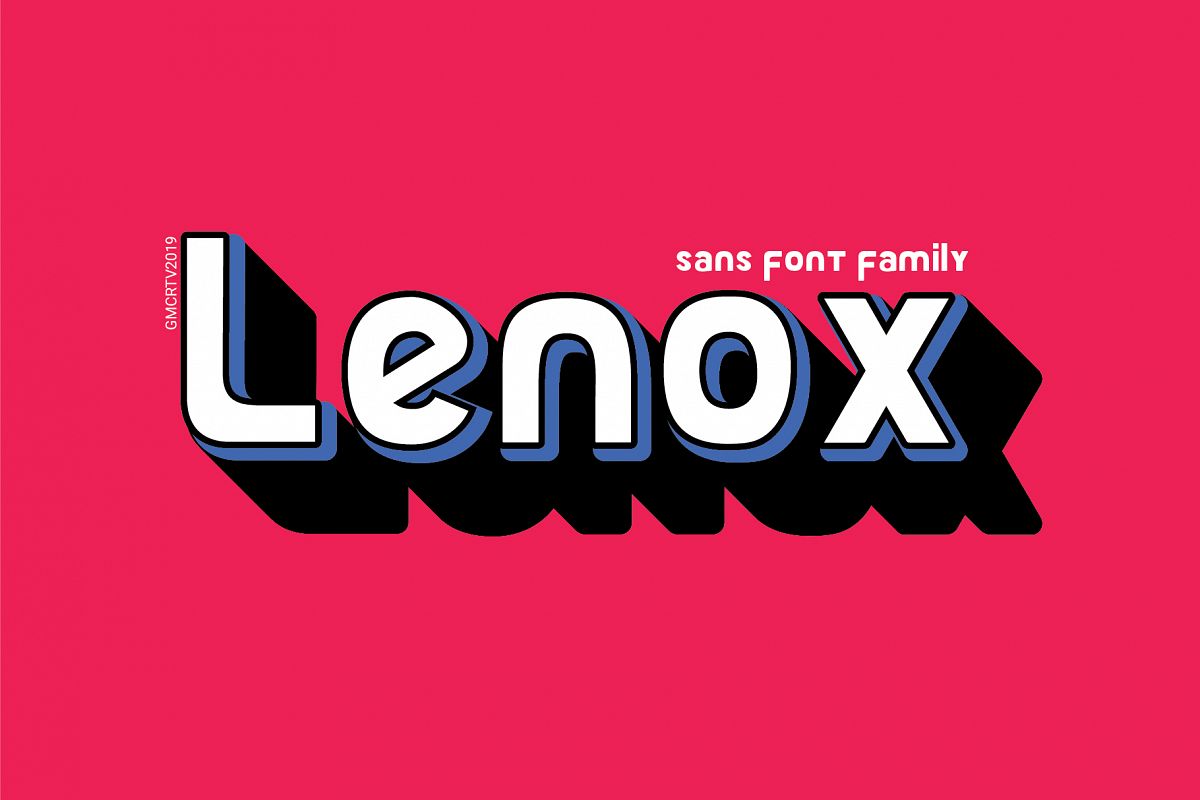
-- Powerful / Elegant / Modern --Lenox is a sans font family and sophisticated sans serif. Inspired by a modern letter logo with a strongest look. it's perfect for you to show your design or product in professional way.